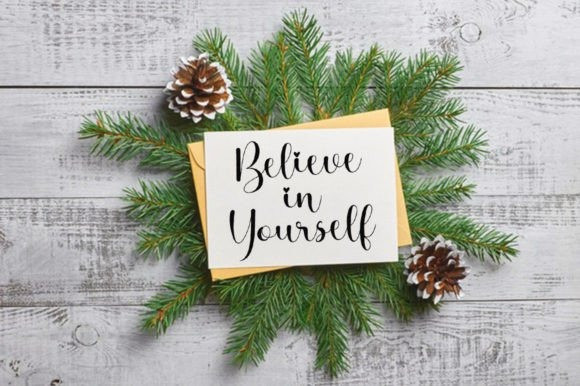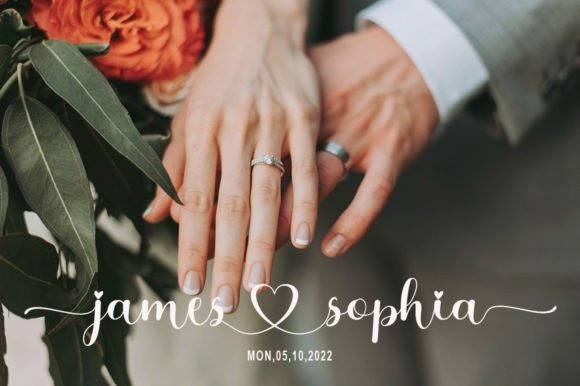
Marlyn Malson Font
Marlyn Malson Calligraphy Font is a romantic and sweet calligraphy typeface with characters that dance along the baseline. This font is PUA encoded which means you can access all of the amazing glyphs and ligatures with ease!